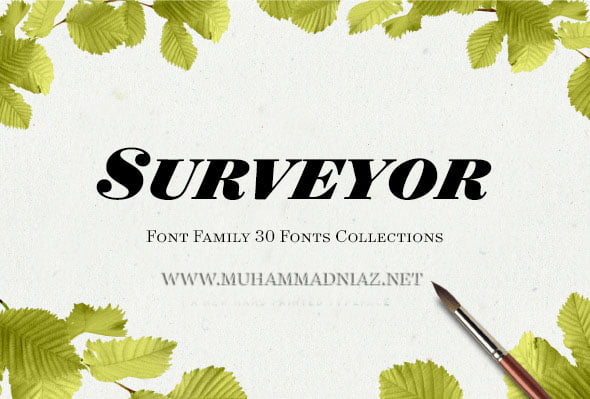
Surveyor Font Family Free Download
Surveyor is a serif typeface family, This Font is a huge family that is available in five weights: light, book, medium, bold and black: with each weight available in italic, small caps and swash styles. Additionally, all of the aforementioned styles are available in three optical sizes: Surveyor Text, Surveyor Display and Surveyor Fine. The style of lettering that inspired Surveyor is an invention of the early nineteenth century, born of the material properties of copperplate engraving and the informational needs of cartography.